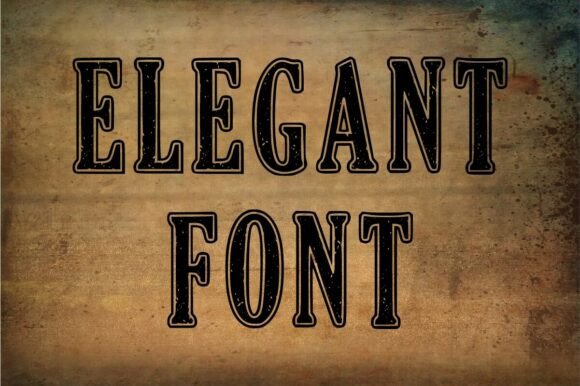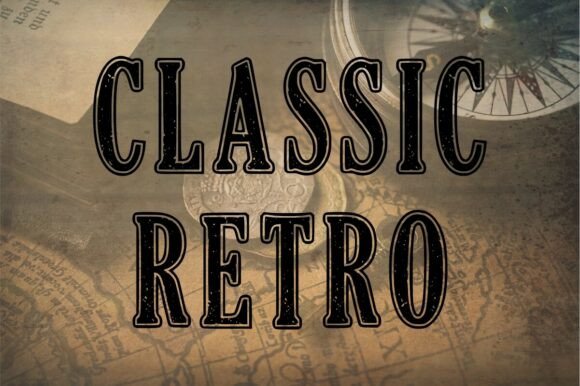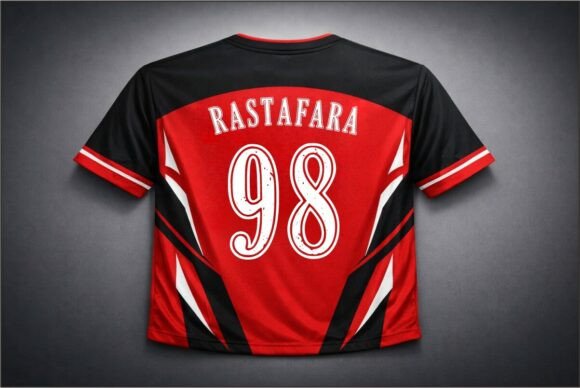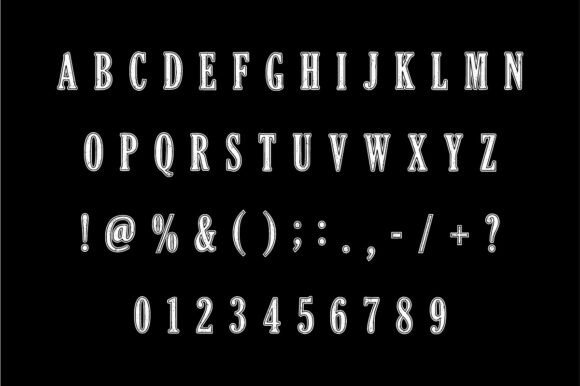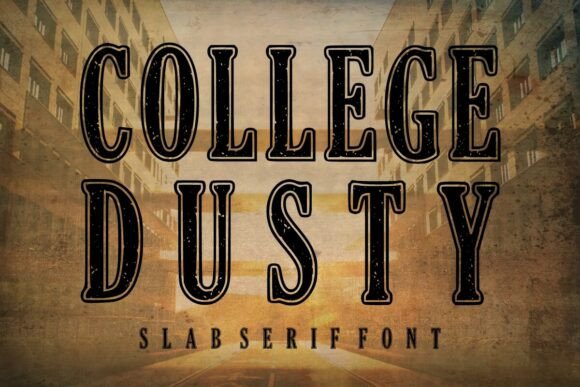
Unleash the Rugged Charm of College Dusty Font: A Slab Serif Typeface for the Urban Soul
In the world of typography, few fonts capture the essence of a city’s industrial heritage as effectively as College Dusty. This condensed slab serif typeface is a masterful blend of ruggedness and sophistication, making it an excellent choice for designers and crafters looking to infuse their projects with a sense of grit and history.
The Story Behind College Dusty Font
College Dusty font is more than just a typeface – it’s a storyteller. Its elongated, towering structure and subtle “dusty” texture evoke the image of a city that’s been shaped by years of hard work and determination. This font is perfect for heritage-inspired branding, vintage coffee shop logos, and urban streetwear labels that want to convey a sense of authenticity and permanence.
Design Features of College Dusty Font
So, what makes College Dusty font so unique? Here are a few key design features that set it apart:
- Condensed slab serif structure: College Dusty’s elongated design allows it to make a big impact even in narrow spaces, making it perfect for bold headers, craft beer labels, and cinematic title sequences.
- Subtle “dusty” texture: The font’s texture gives it a worn, vintage look that’s reminiscent of old photographs and distressed paper.
- Towering structure: College Dusty’s tall letters create a sense of grandeur and monumentality, making it perfect for headlines and titles.
Perfect Pairings for College Dusty Font
To get the most out of College Dusty font, it’s essential to pair it with the right design elements. Here are a few suggestions:
- Sepia tones: Warm, earthy tones that complement the font’s vintage vibe.
- Textured paper backgrounds: Distressed paper or cardboard textures that add to the font’s “old-world” charm.
- Urban photography: Gritty, black-and-white cityscapes that reflect the font’s industrial heritage.
Use Cases for College Dusty Font
College Dusty font is an incredibly versatile typeface that can be used in a wide range of design projects. Here are a few ideas to get you started:
- Heritage-inspired branding: Use College Dusty font to create logos and branding materials that evoke a sense of history and tradition.
- Vintage coffee shop logos: Pair College Dusty font with warm colors and distressed textures to create a cozy, retro vibe.
- Urban streetwear labels: Combine College Dusty font with bold graphics and gritty imagery to create a tough, urban look.
- Craft beer labels: Use College Dusty font to create labels that convey a sense of craftsmanship and tradition.
- Cinematic title sequences: College Dusty font is perfect for creating bold, eye-catching titles that set the tone for a gritty, urban film.
College Dusty font is a powerful tool for designers and crafters who want to capture the rugged, industrial soul of the city. With its condensed slab serif structure, subtle “dusty” texture, and towering structure, this font is perfect for creating bold, eye-catching designs that tell a story of heritage and grit. Whether you’re working on a heritage-inspired branding project, a vintage coffee shop logo, or an urban streetwear label, College Dusty font is an excellent choice.